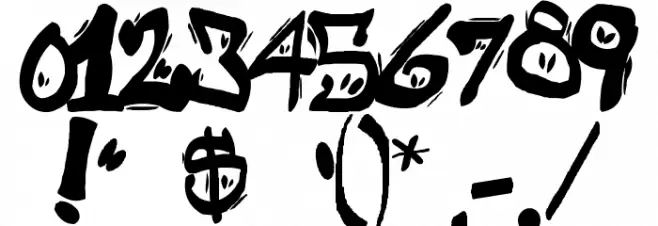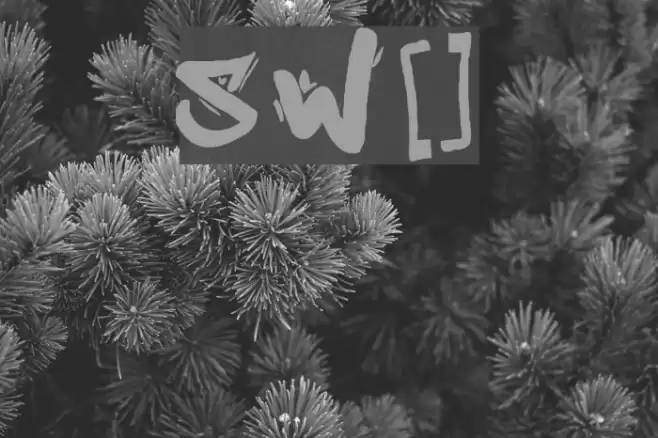
Street Writer [noah] Font
Street Writer [noah] Description
This font embodies a bold, dynamic graffiti style with a strong urban influence. The characters are highly stylized, featuring sharp angles and dramatic strokes that mimic the look of spray-painted street art. The uppercase and lowercase letters maintain a consistent aesthetic, with exaggerated curves and pointed edges that create a sense of movement and energy. Numbers and special characters follow the same design principles, ensuring a cohesive look across all glyphs. The font's chaotic yet controlled appearance makes it ideal for projects that require a rebellious or edgy vibe.
| Overall Style | Urban, Graffiti, Edgy |
| Use Case | Logos, Posters, Headlines |
| Proposed Projects | Perfect for street art designs, urban-themed posters, music album covers, and edgy branding projects. |